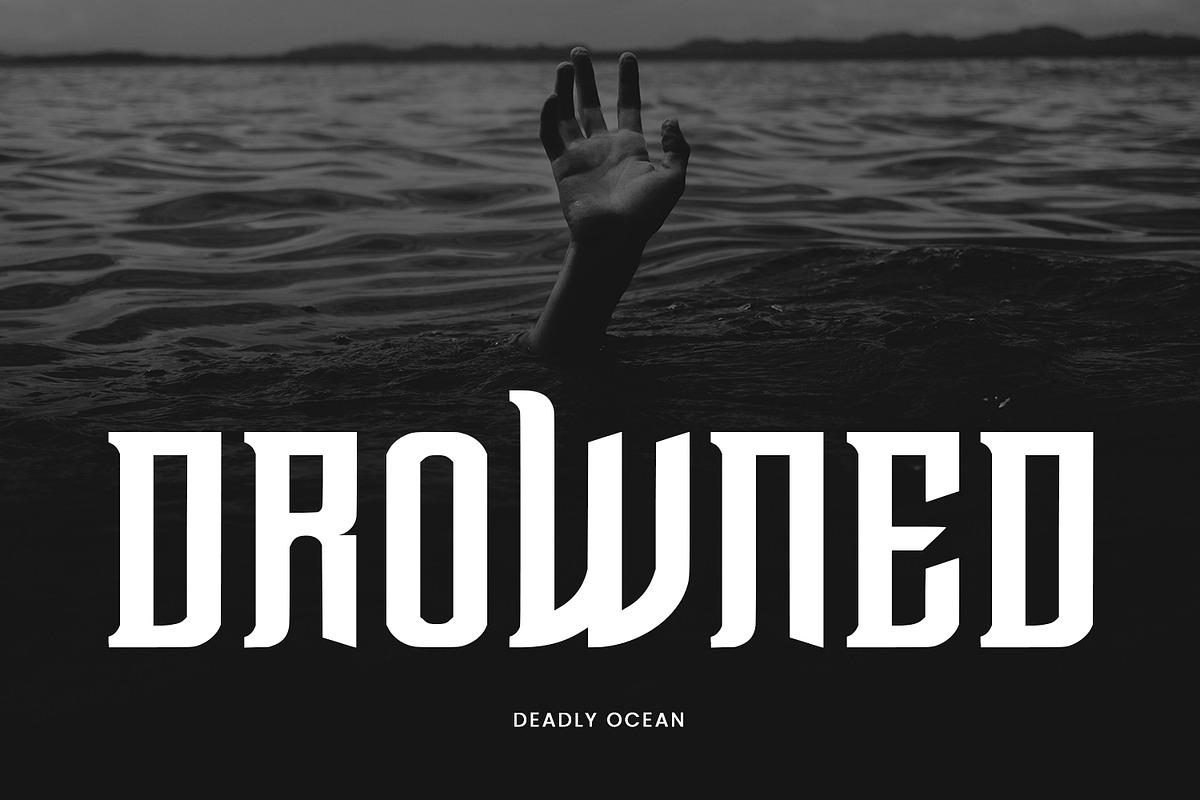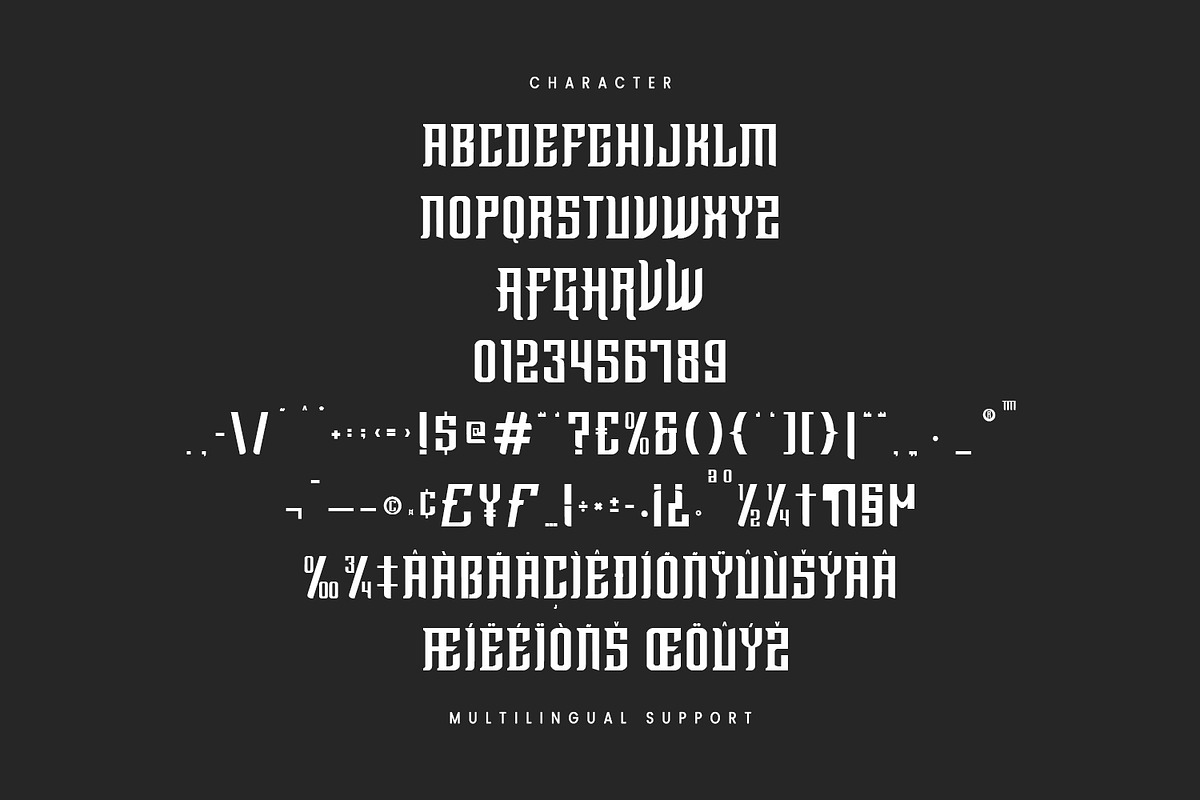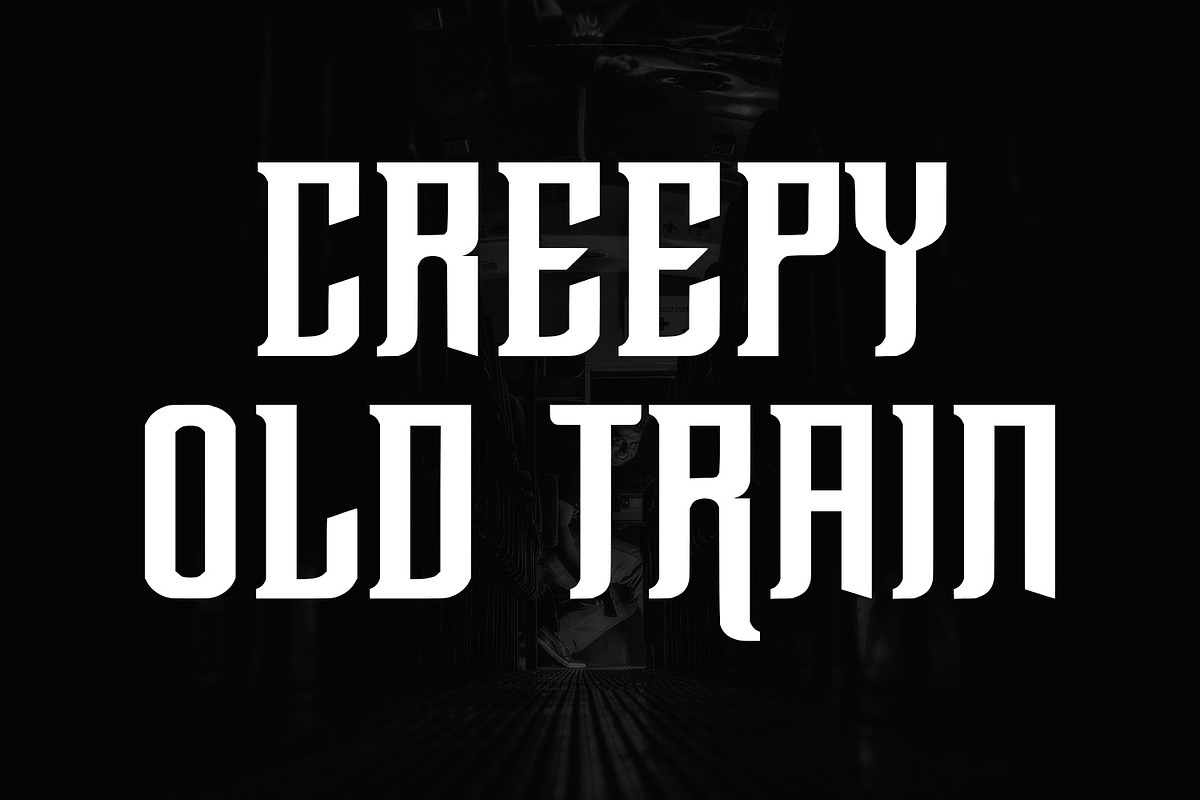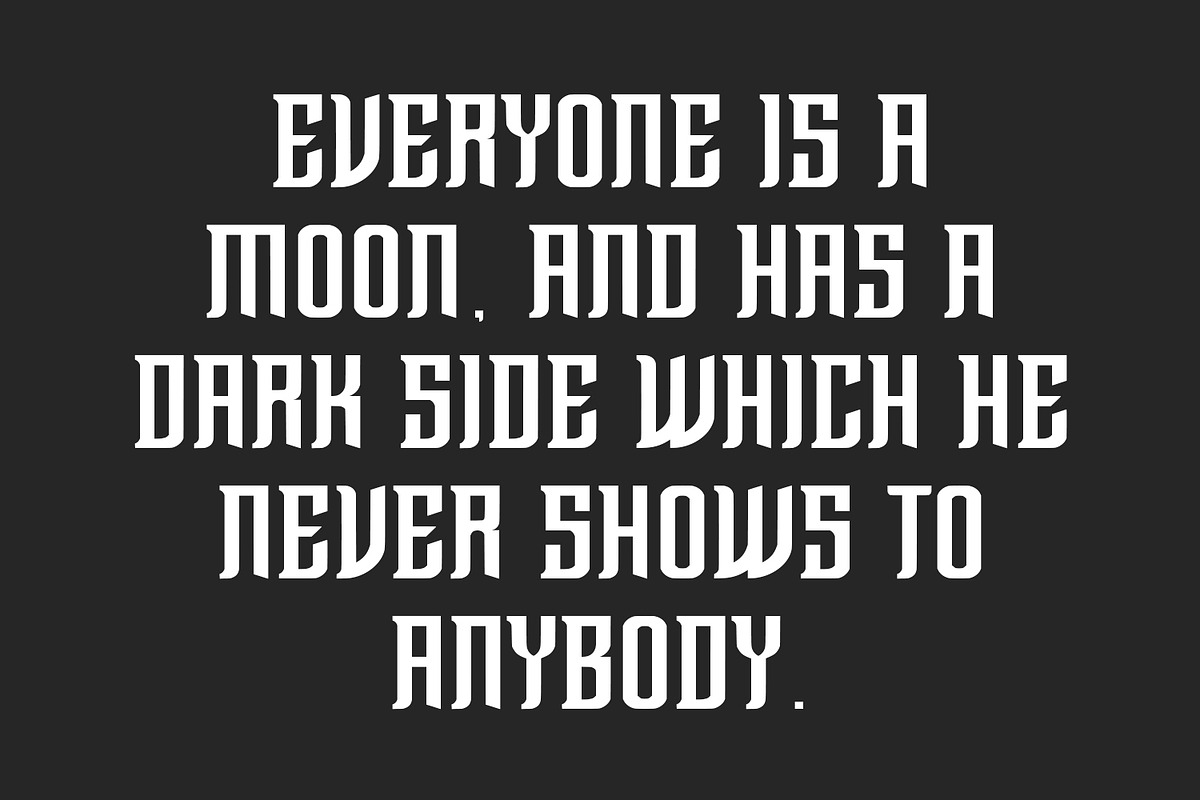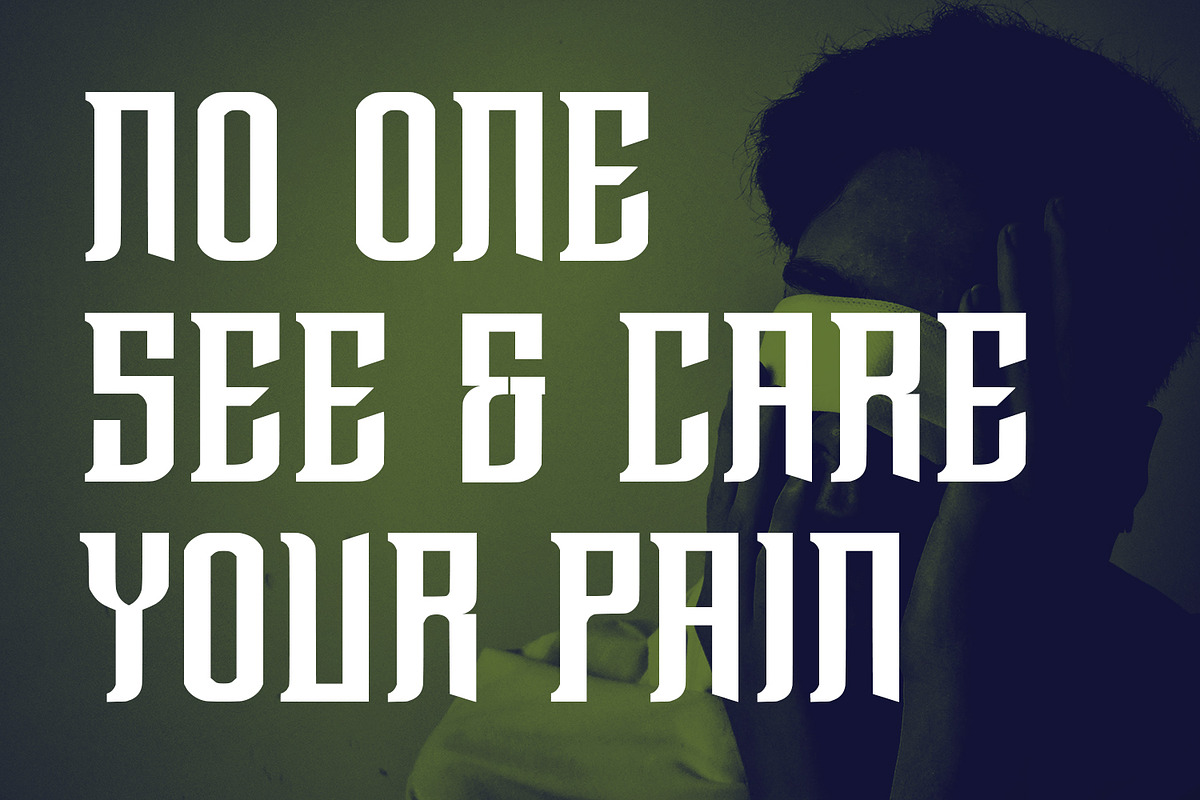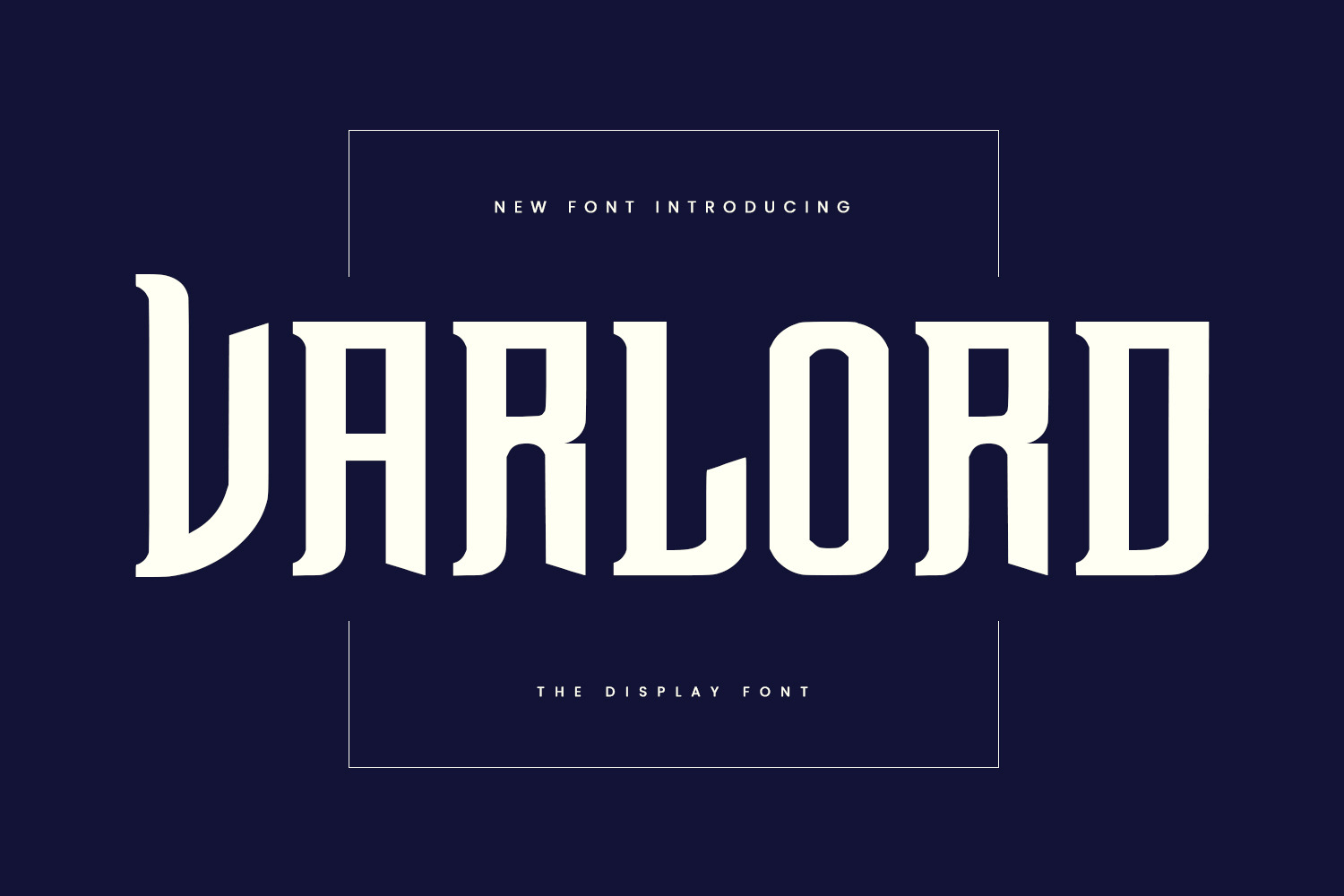
Varlord Font
Varlord Display Font Vintage is a handmade Modern Victorian handlettering, which is combining modern and classic typography with some awesome alternates. Yes we back to early 1800s, bring classic touch on this decade.